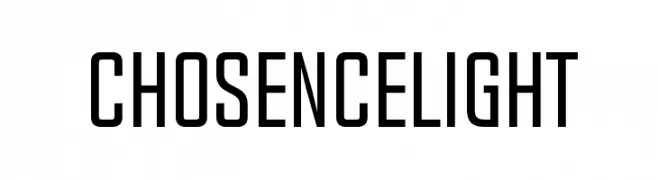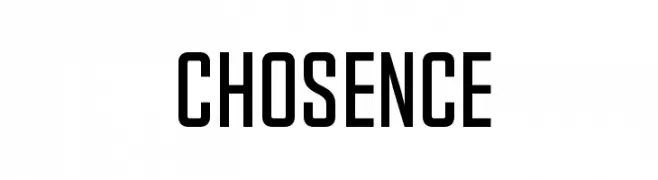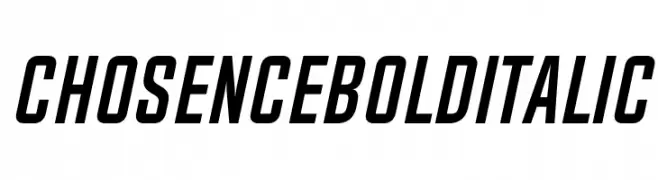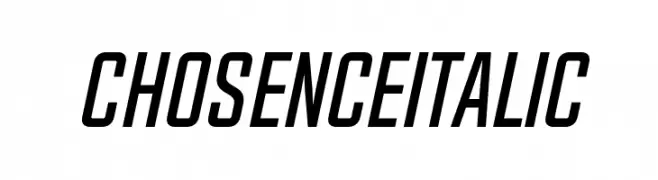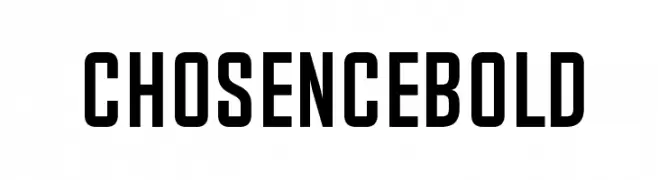
A modern, condensed sans-serif font with uniform strokes and excellent readability.
A sleek, modern italic font with a streamlined and dynamic appearance.
A modern, geometric sans-serif font with a clean and narrow design.
A bold, modern sans-serif font with a condensed, geometric style.
A bold, italicized font with strong, angular lines and a modern style.
A modern, italic font with a condensed and dynamic style.
A bold, geometric typeface with strong, uniform strokes and modern appeal.
A bold, angular font with a dynamic, geometric style.